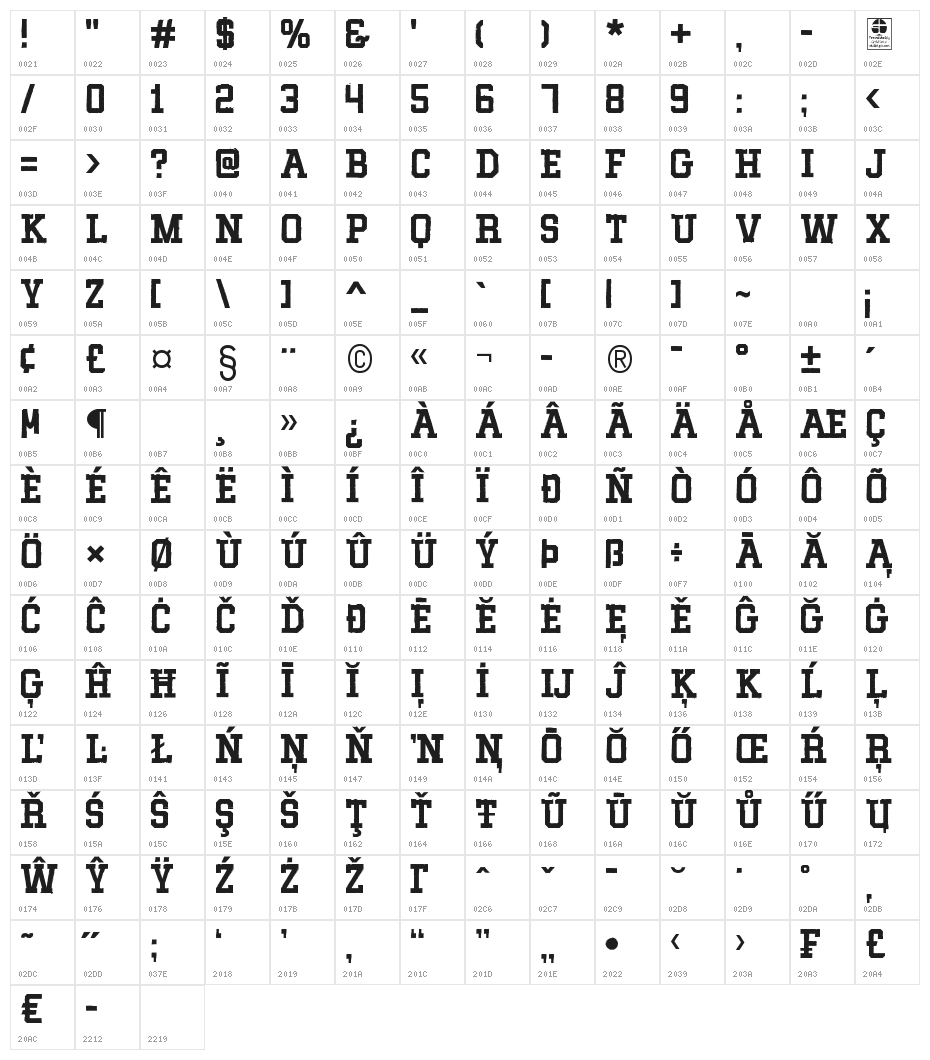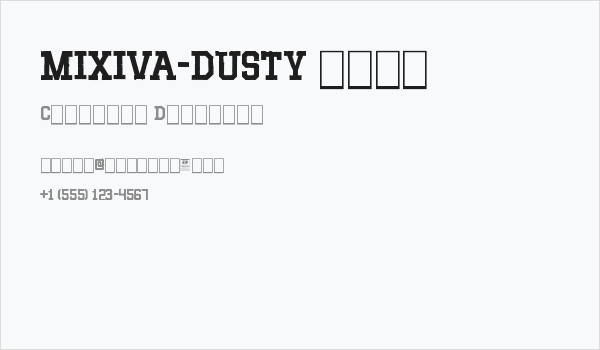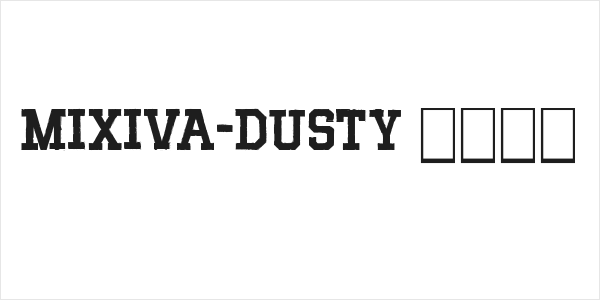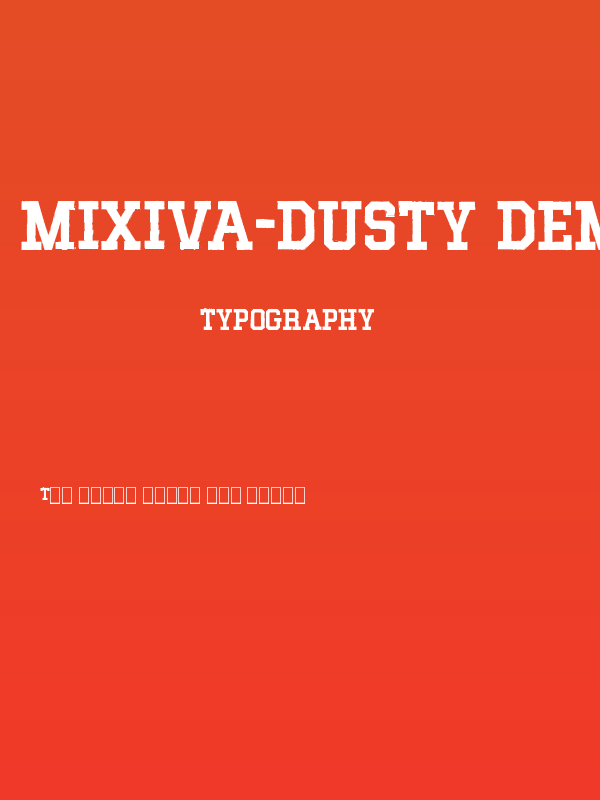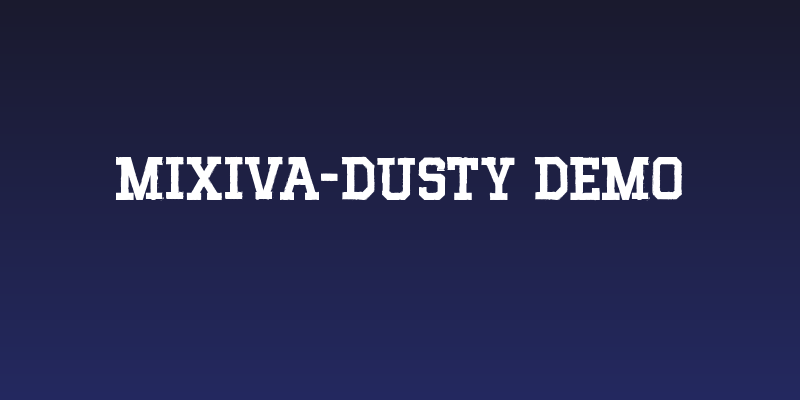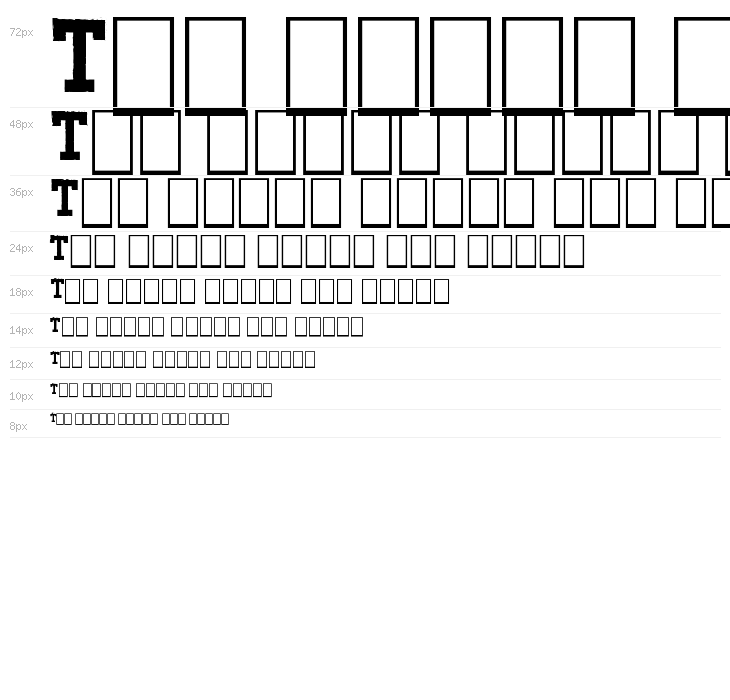
MIXIVA-DUSTY demo Font
MIXIVA-DUSTY demo Description
This font features a bold and rugged design, characterized by its distressed and textured appearance. The uppercase letters are prominent and sturdy, giving a sense of strength and durability. The numbers and special characters maintain this bold style, making the font suitable for impactful and attention-grabbing designs. The overall look is reminiscent of vintage or industrial themes, with a modern twist that adds a unique flair to any project.
| Overall Style | Vintage, Industrial |
| Proposed Projects | Ideal for posters, logos, branding, and any design requiring a strong, vintage aesthetic. |